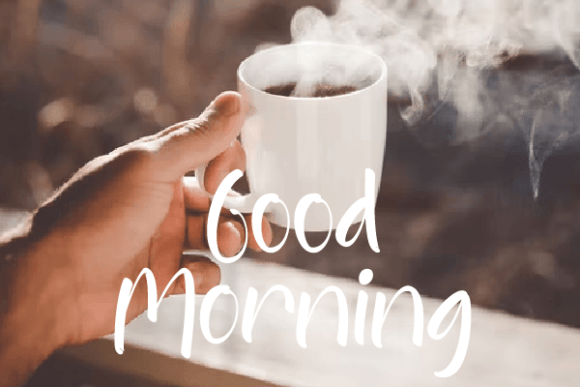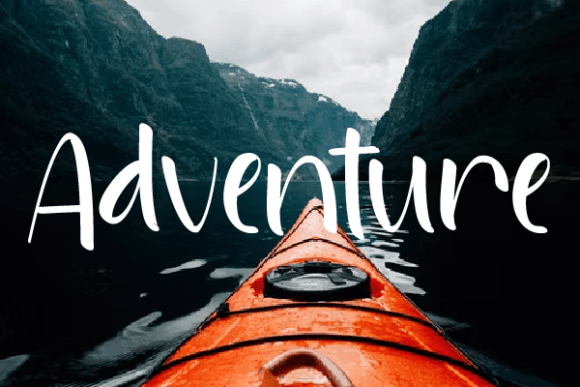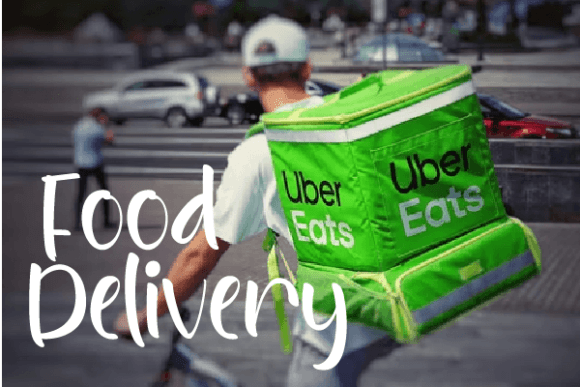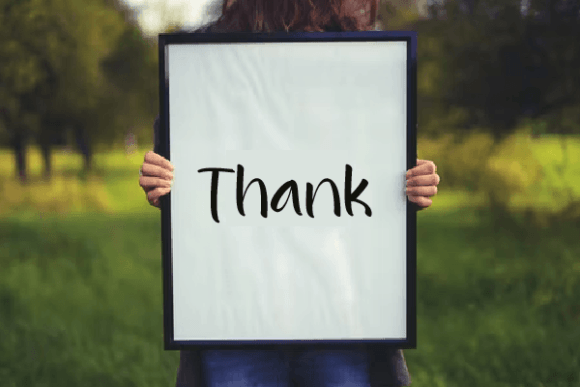
About Madison Font
“Madison” is a contemporary handwritten font that embodies modern elegance and style, making it an excellent choice for a wide variety of creative projects. Its versatile design makes it perfect for an array of applications, including wall displays, wedding invitations, social media posts, logos, advertisements, product packaging, product designs, labels, photography, watermarks, invitations, stationery, and any other project that benefits from a personalized, handwritten touch.
This font’s modern, yet organic, appearance adds a touch of sophistication and authenticity to your designs. Its flowing letterforms and natural strokes create a harmonious and visually appealing aesthetic, making it suitable for both digital and print applications. Whether you’re designing for online platforms or physical products, “Madison” ensures that your content looks contemporary and refined.
One of the key advantages of “Madison” is its ability to convey a sense of warmth and approachability. Handwritten fonts like “Madison” create a personal connection with the audience, making it ideal for invitations, stationery, and social media posts. Its casual yet stylish look adds a touch of personality, allowing you to communicate your message in a genuine and relatable manner.
Additionally, “Madison” is versatile enough to be used for branding and marketing materials. Its clean and modern appearance ensures that your logos, advertisements, and product packaging exude professionalism and creativity, leaving a lasting impression on viewers and customers alike.
By incorporating “Madison” into your projects, you’re infusing your designs with a contemporary, handwritten charm. Its versatility and elegant style enhance the overall visual appeal and impact of your creative endeavors. Whether you’re a graphic designer, a business owner, or an individual working on personal projects, “Madison” provides you with a stylish and sophisticated font choice to elevate your ideas and create visually stunning outcomes.